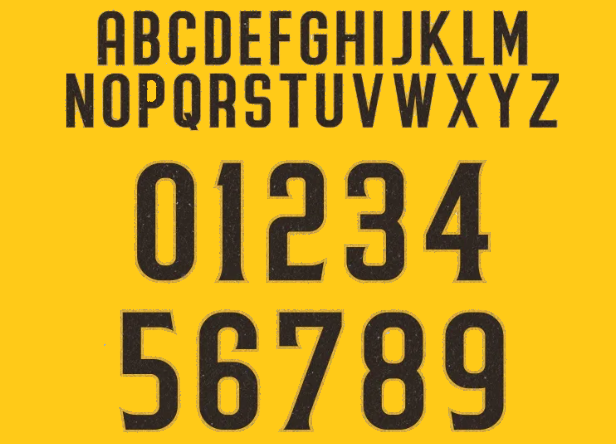
Padres Font
The Padres Font, often associated with the San Diego Padres logo font, captures the essence of the iconic Major League Baseball team. Known for its clean and professional style, the typeface reflects the Padres’ rich history and enduring fanbase.
The font has become synonymous with the team’s branding, offering a visual representation of their identity both on and off the field.
What is the San Diego Padres Font?
The Padres Font refers to the typeface used in the official branding of the San Diego Padres. This font is a bold and modern display typeface designed to convey strength, unity, and professionalism. While the exact font may be custom-made for the team, it closely resembles other geometric sans-serif typefaces.
Its clean lines and strong presence make it a favorite among designers working on sports-related projects.
Padres Font
Key Features of Padres Font
1. Bold and Modern Design: The Padres Font showcases a sleek and contemporary aesthetic, ensuring a visually striking presence that commands attention.
2. Geometric Precision: With clean and symmetrical shapes, this typeface offers excellent readability and a polished, professional finish, ideal for high-impact designs.
3. Highly Versatile: Whether for logos, banners, or merchandise, the font adapts seamlessly across digital and print platforms.
4. Sports Aesthetic: Reflecting the energy and excitement of sports, it complements the dynamic branding of the San Diego Padres.
Applications of Padres Font
1. Branding and Identity: Perfect for creating cohesive and bold branding for sports teams, leagues, or athletic organizations.
2. Merchandise: Commonly used on fan gear like jerseys and caps, it strengthens team spirit while enhancing product appeal.
3. Digital Media: Ideal for impactful social media graphics, professional website headers, and promotional campaigns.
4. Event Materials: Delivers eye-catching designs for flyers, banners, and advertisements, boosting engagement in sports events.
Fonts Similar to Padres Font
Conclusion: Padres Font
The Padres Font encapsulates the spirit of the San Diego Padres with its bold, professional, and versatile design. Whether you’re creating merchandise, event materials, or branding projects, this font ensures a strong visual presence.
Explore similar fonts online to incorporate the iconic style into your designs and celebrate the Padres’ legacy!